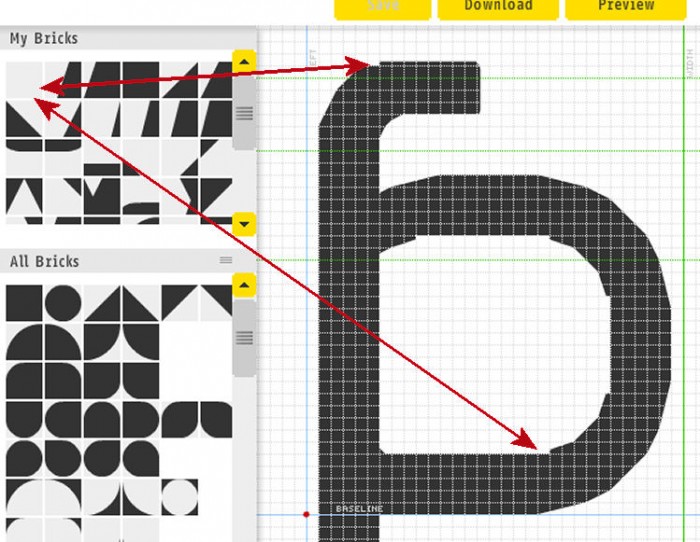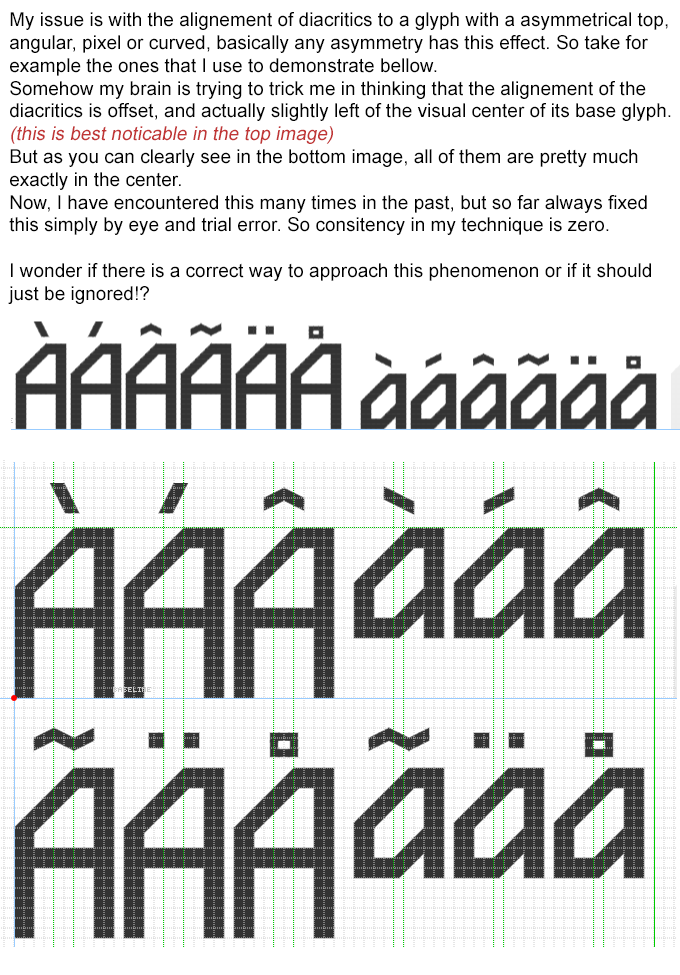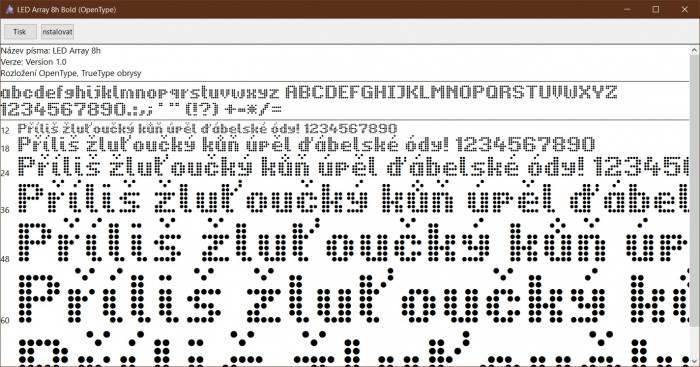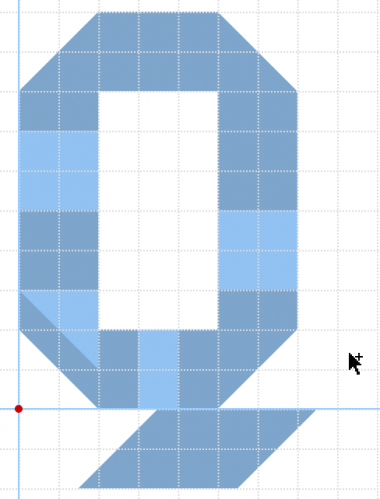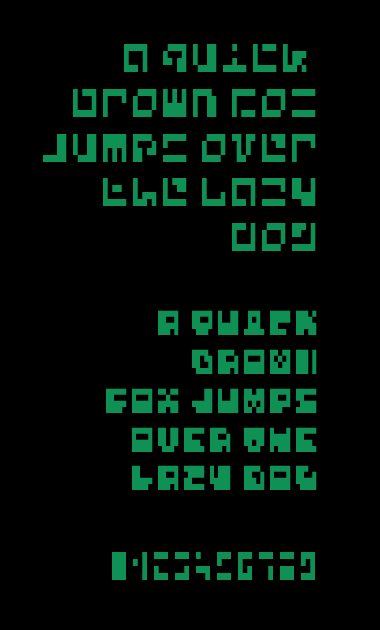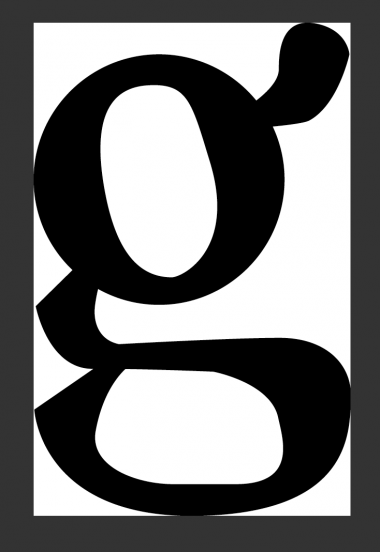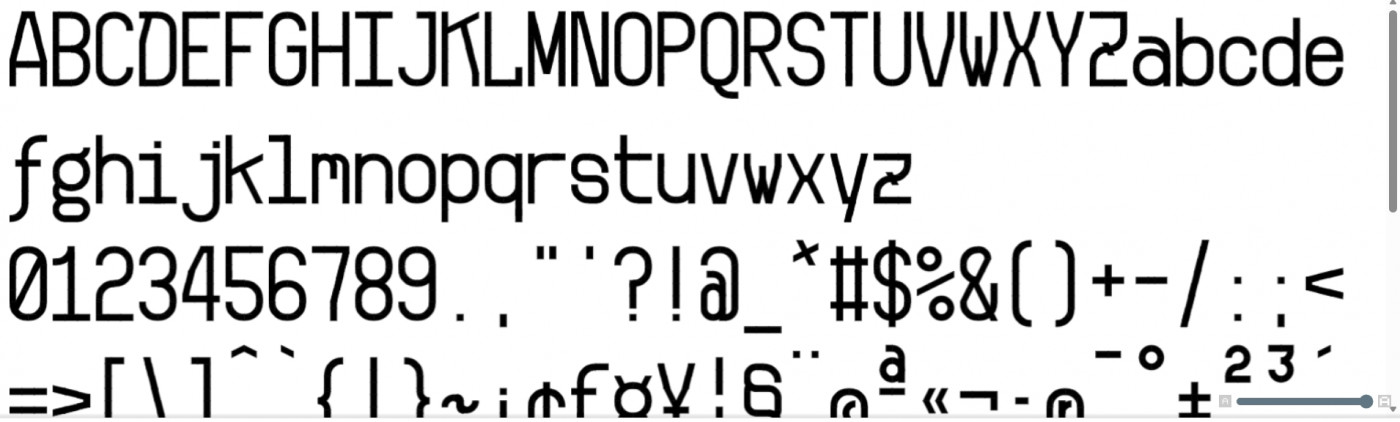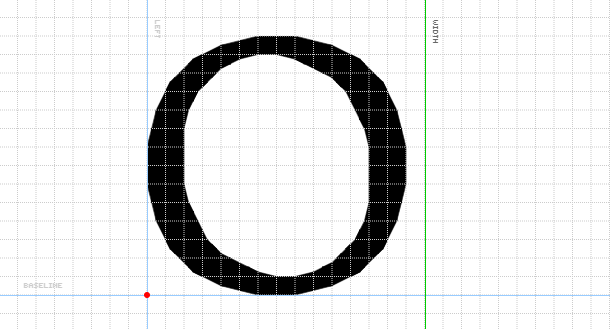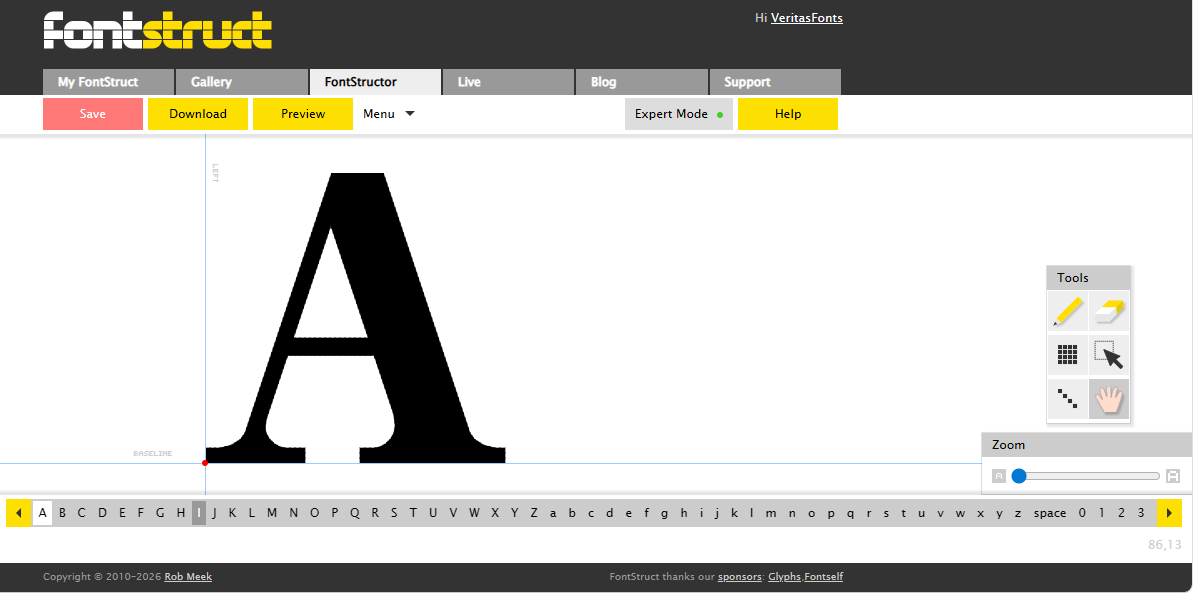
The collaborative and open spirit of FontStruct is unparalleled when compared to other sites. We already have a forum to share feedback on the tool itself, a forum to talk about typography, and a forum to get inspired and motivated.
However, today I've decided to focus more on the collaborative aspect of FontStruct. What initially drew many of us to this site was the wonderful creative critique between users. I haven't encountered another social design with as deeply ingrained sense of community as FontStruct. However, critique is currently limited to the specific pages of public fonts.
Today, I introduce a new forum. Share unfinished fonts and ask for thoughts on your work. Present small details of a font for inspection by fellow FontStructors. Upload screenshots of that frustrating "s" or "z" and work with the community to find solutions.
This is the next step in opening up FontStruct's amazing community and refining the collaborative process.
Please, FontStructors, upload only your own work to be criticized. Be courteous. Work together. Find inspiration.
@Winty : i'm not approving much this attitude of "finishing" the other's work. Or you try and help the original author to improve himself his creation, or you take his rough or beginning as basic inspiration as i did it many times to push it in a really different, personal direction, making definitely your own without any possible confusion... That's why i'll never join your "collab" parties, and also i never thought it helps anybody to make His work at his place...
winty5 — Please do not blow up the live feed or this forum with too many separate images of every character you need help on. The chances of someone giving you suggestions is much higher when they don't have tons of images to look at. :-)
@winty, and also i think you should put your chars in context revealing the global style of the font, because any isolated glyph can be appropriate in the well chosen style. Show a bunch of chars you think you succeeded in comparison. Some style are more supporting and even demanding irregularities as others
Which characters do you prefer? The bottom M/N/W might fit better with A (and V) since they're more pointed, but the M may be a little too narrow and the W too wide. The top Z/z look a bit narrow too.
I would prefer the narrow M, the narrow N, the narrow W, the pointy w, the pointy Z/z, the pointy R, and the pointy Y. They look more normal and fluent in running text. Maybe the bowl of the R could have a more regular stress.
Hello fontstructors, to get some rest and freshness from my interminable series of updates, i worked on this new thing, sort of little hommage to "data" 70s fonts do you think it's worth publishing and maybe improving?
@AFT/CT: Very much so! The top one very elegantly plays with the shapes of the f, s, x and z.
The bottom one is cool too: I especially like the M, N and W, but the T looks a bit too much like a Q or an O, and the H could be mistaken for an N. Perhaps you should mirror the H? I don't know what to do about the T, maybe make it look closer to an upside-down I?
@TC/CMunk : Thanks! It wasn't clear on the previous sample but actually it's one and only font. Here's a sample with one UC in front of each word. I'll see what i can do to with T and H later
Are you asking for critique on that g? If so, I don't like the loop extension on the right. It might be beneficial to shorten the ear, but there is nothing wrong with the current model.
I like this one. Try flipping the ear vertically and rotating it left. I'm not a fan of having the loop so wide, but then again I can't see it in text. Also is it possible to smooth the curves a little?
@FONTSTRUCTORS : working hard now on my Formaldehyde final presentation. What do you think of this mix of frame / colors above i chose for the whole series?
What's with all these come-and-go fontstructors? So many times I see them make 1-2 fonts and then quit. I've somewhat recently ago hit my 2 year anniversary and I HATE going a day without checking the board to see what all the new fonts are.
Well at least you're still very much here, minidonut. I count that just as well as anything else. I more mean those that don't even visit fonstruct at all anymore.
Youre one of my fav publishers, between your chess bit, your nonogram, side view, cheese, ....
oh! as I was looking through your collection I just got the coolest idea!
I rather like the second a, and I think the terminal works well. Yeah, I haven't been on here in quite a while. I've been polishing Tehuti. I'm working on the new italic version at the moment. Needless to say, Tehuti has become a modern typeface, and is now more like Electra in its design. I've added Greek, Cyrillic, all IPA, UPA and Teuthonista characters, arrows, some math, etc.
I agree with the variant 1.
version 1
i'm making a monospace font meant for coding, here's most of basic latin ([\]{|} got chopped off) and a tiny little bit of latin-1 supplement
(haven't done the diacritics)
here's some other glyphs
and þ
making a 1x1 filter small grid garalde, how's this "O"?
The letter g (same font)
@Luis Becerra: Nice try. Waiting for the rest.
Hey guys! Sorry for being so inactive, I've ditched the small grid serif in exchange for this one. How'd I do?
good
Oh, the first photo didn't load. Here it is: